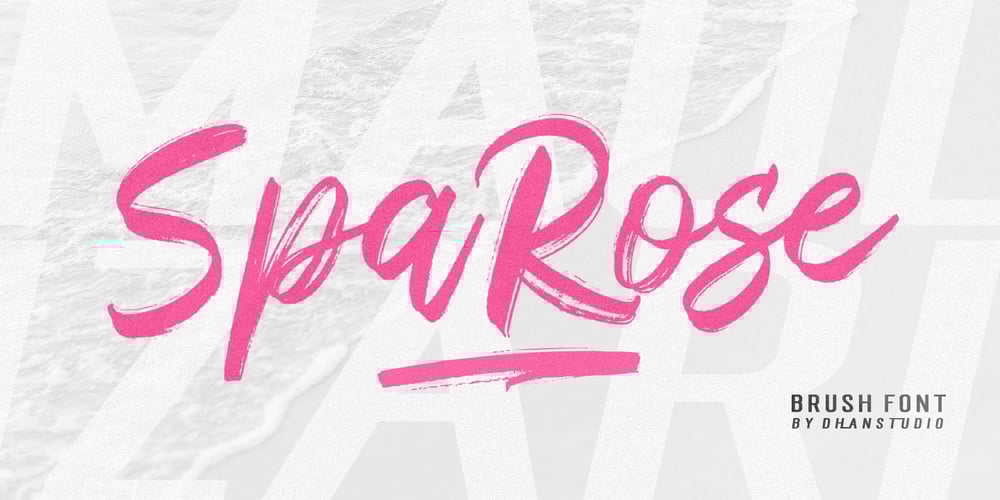
Sparose Font Family was designed by Mauli Zari and published by Dhan Studio. Sparose contains 2 styles and family package options. Sparose fonts is handwritten specifically designed to get texture, also have ligature and beautiful Swash. Suitable for use in design titles such as invitations, signboards, book titles, stationery designs, quotes, branding, logos, greeting cards, packaging designs, posters, and more.